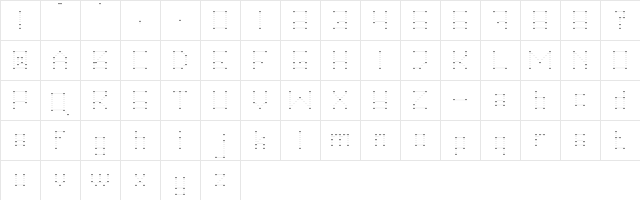
hei dots follow me! Regular
Design Context for hei dots follow me! Typeface
hei dots follow me! is rooted in pixel-grid construction, making it a natural fit for game UI, retro computing aesthetics, and digital nostalgia projects.
Well-suited to indie game interfaces, retro computing aesthetics, and pixel art-adjacent design work.
Pro Tip: Use hei dots follow me! at sizes that align with its pixel grid for the sharpest rendering — scaling to non-integer multiples can introduce unwanted blur.